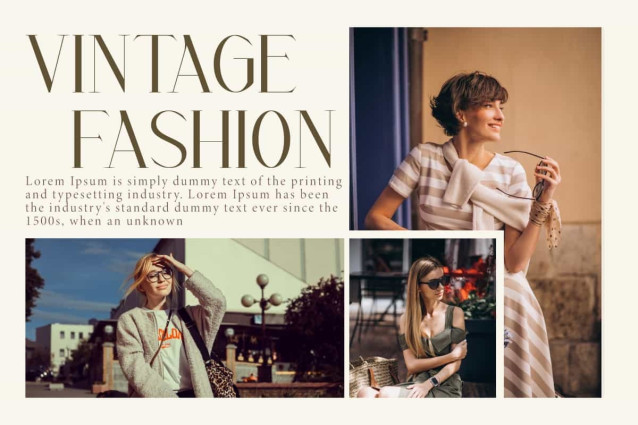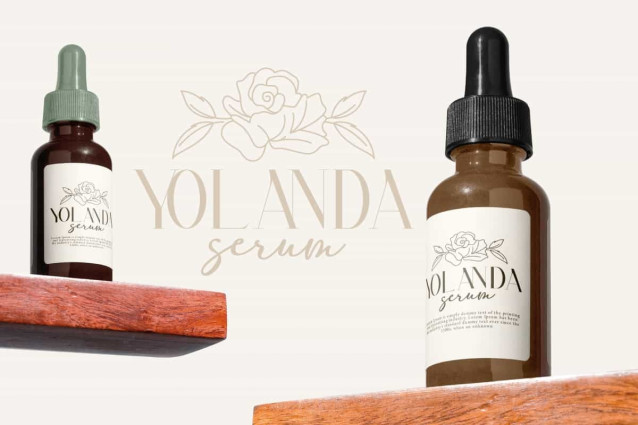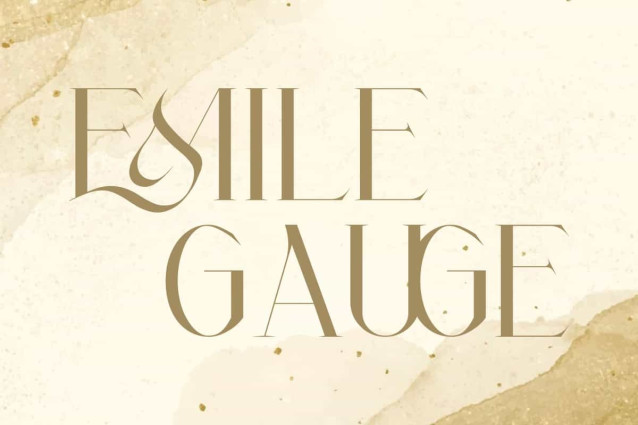
Emile Gauge Font
Emile Gauge Font is a display serif font with a unique typography design, combining subtle decorative elements with bold lines that create an elegant and modern look. This font will be perfect for any projects, can be used for label, invitation, advertising, brand image, custom design, layout design, quotes, stationery, template design, website, and more!
Emile Gauge Font includes full set of Uppercase and Lowercase Basic Characters, Numerals, Punctuation, and Symbol. The Ligature character is sleek and has a distinctive artistic touch, with curved details that reinforce the luxurious and exclusive impression. Making it a perfect choice for a variety of fields, such as beauty product, accessories and jewelry, fashion, event or wedding organizer, florist, furniture, real estate, spa salon, etc.